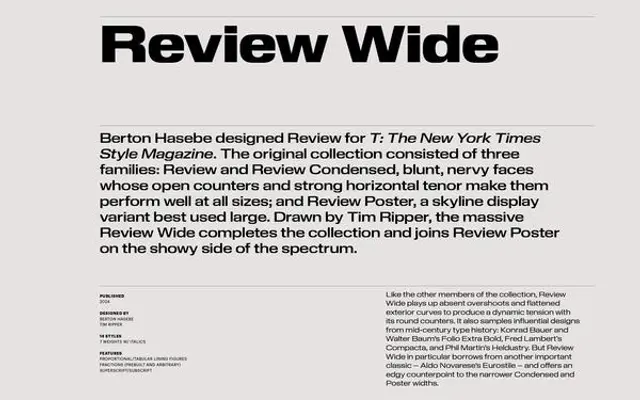
Review
Commercial Type · Berton Hasebe, Tim Ripper · 2018
Review specimen from Commercial Type
Berton Hasebe's squarish, commanding display sans drawn for T: The New York Times Style Magazine's 2018 redesign, with Condensed, Poster and Wide companions.
A four-width display sans drawn by Berton Hasebe with Tim Ripper, originally created as Kippenberger for the 2018 redesign of T: The New York Times Style Magazine when the publication shifted from image-led to text-led. Seven weights run from Thin to Black with italics across Review, Review Condensed, Review Poster and Review Wide. Overshoots are sheared off and exterior curves blunted, producing strong horizontal bands of letters that evoke embossing type while staying legible. Suits magazines, fashion, culture and identity systems that want a commanding voice.
Commercial Type describe Review (originally Kippenberger) as a squarish, commanding display sans drawn by Berton Hasebe for the 2018 redesign of T: The New York Times Style Magazine. Hasebe sheared off overshoots and blunted exterior curves to produce strong horizontal bands of text, evoking embossing type without sentimentality.